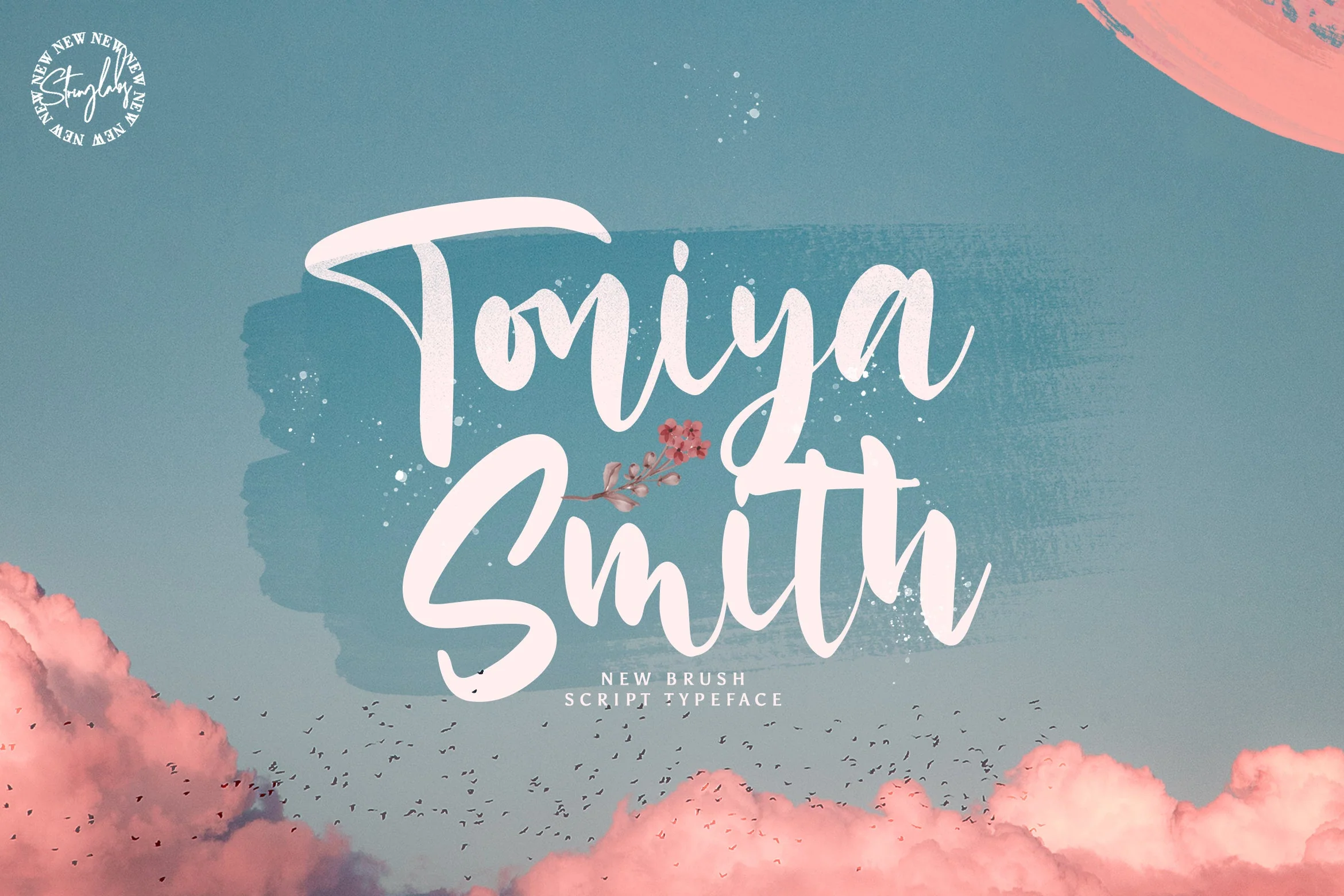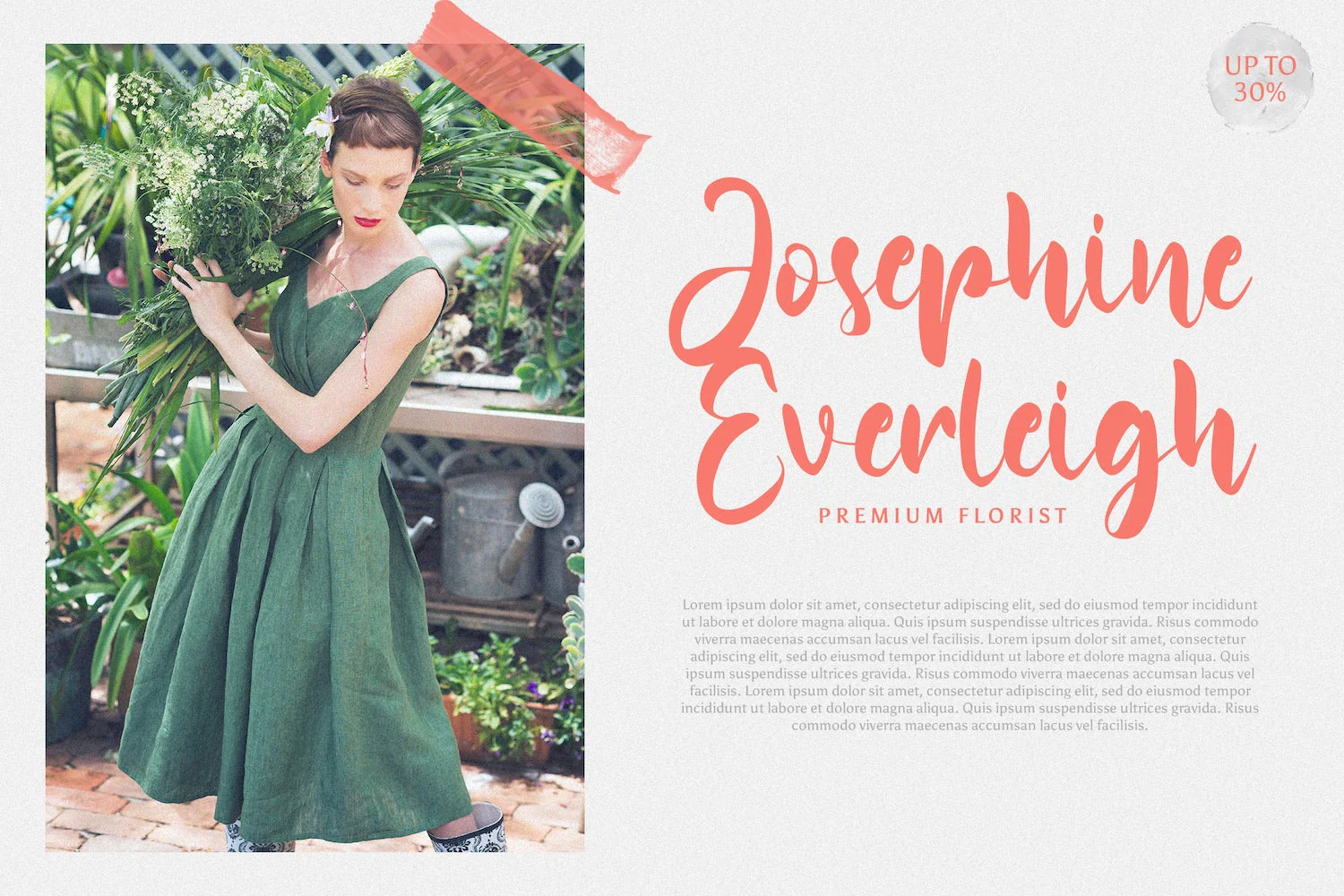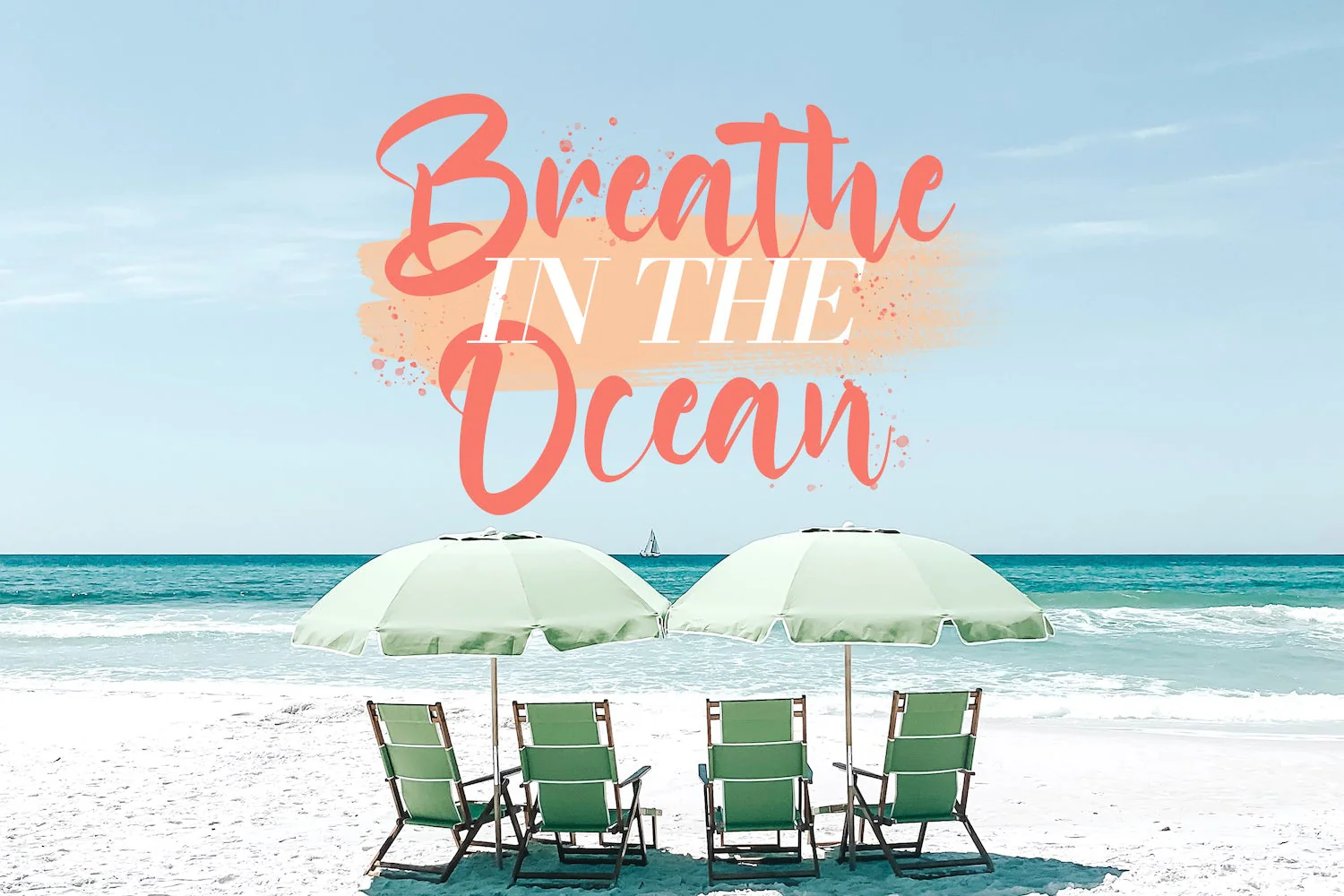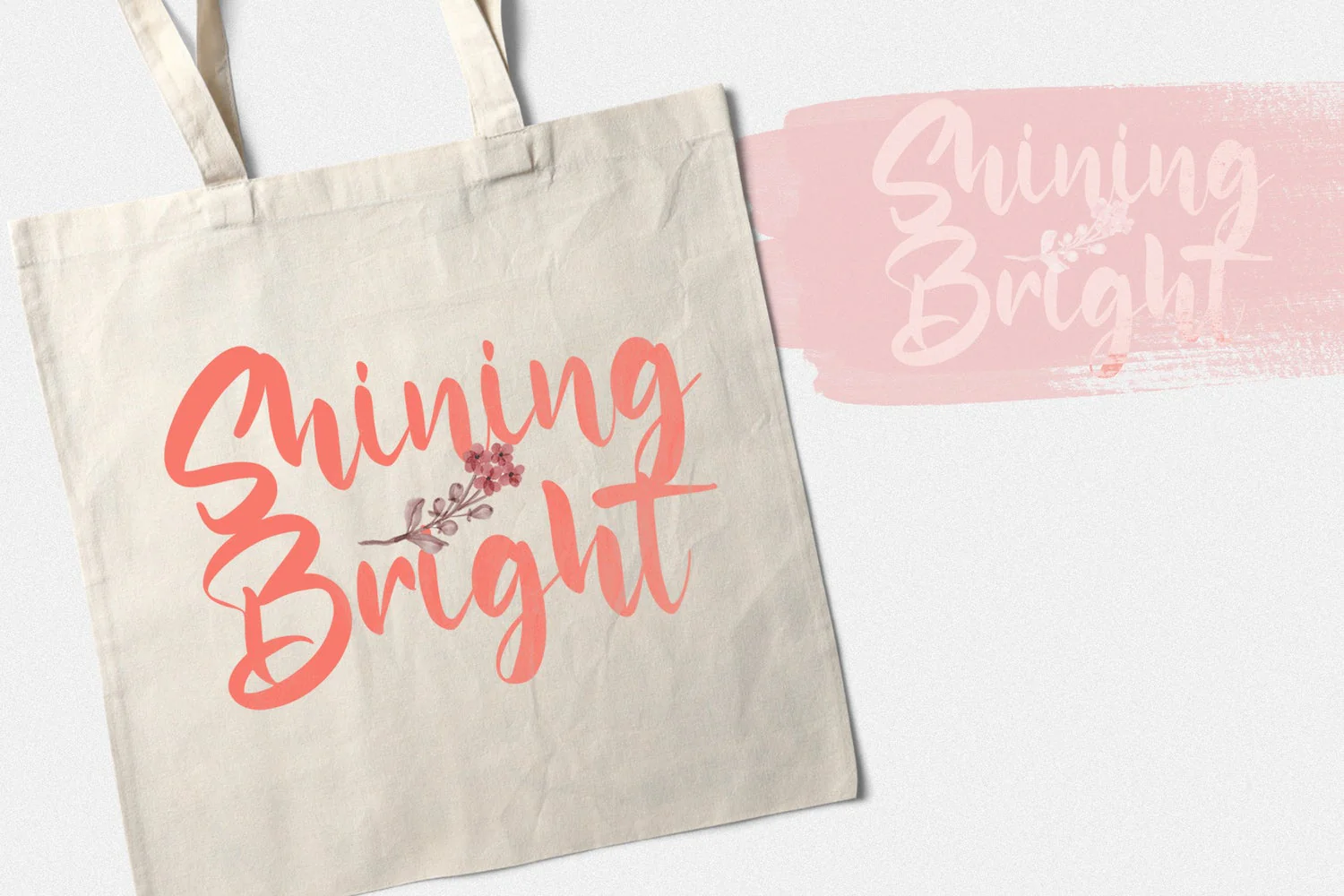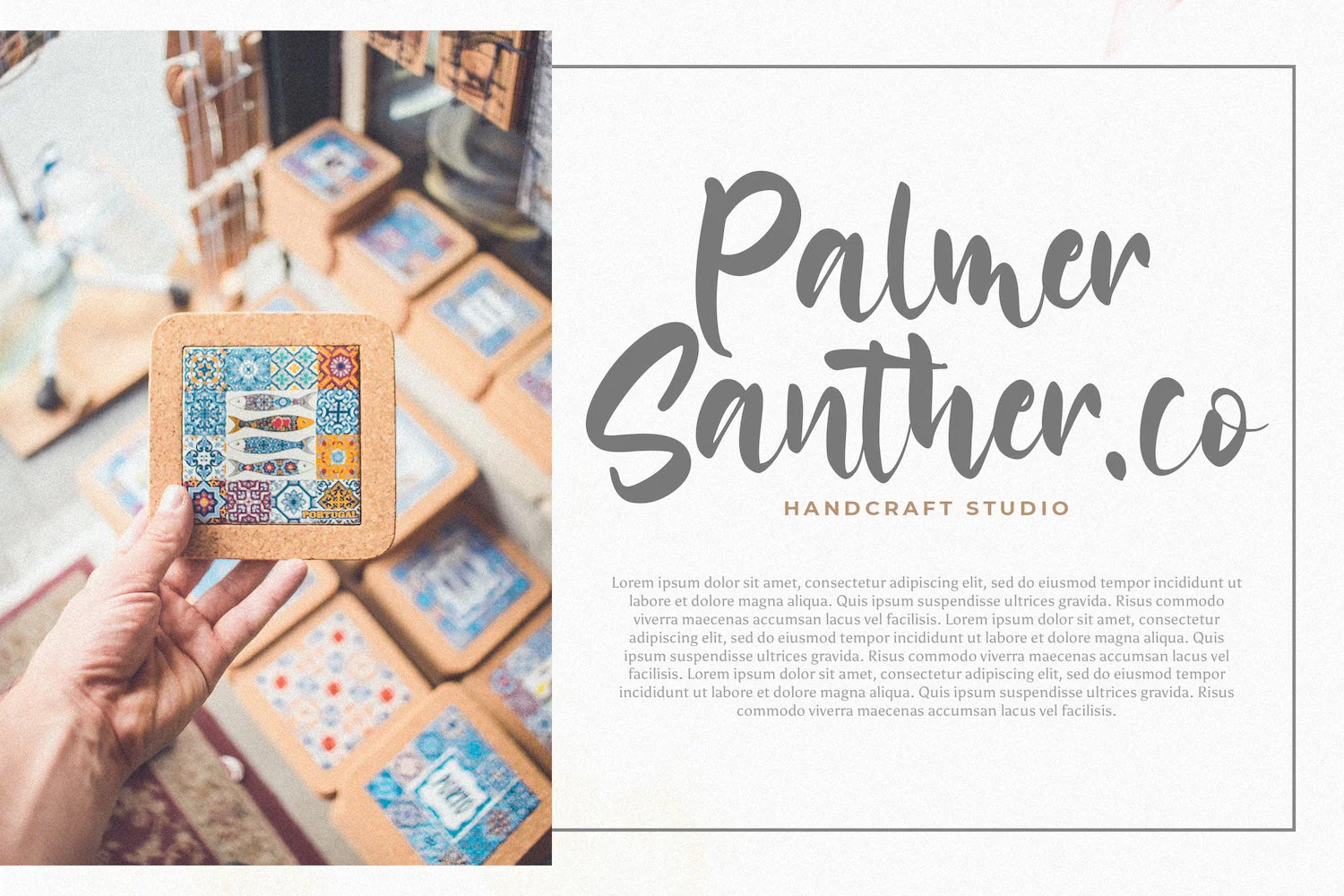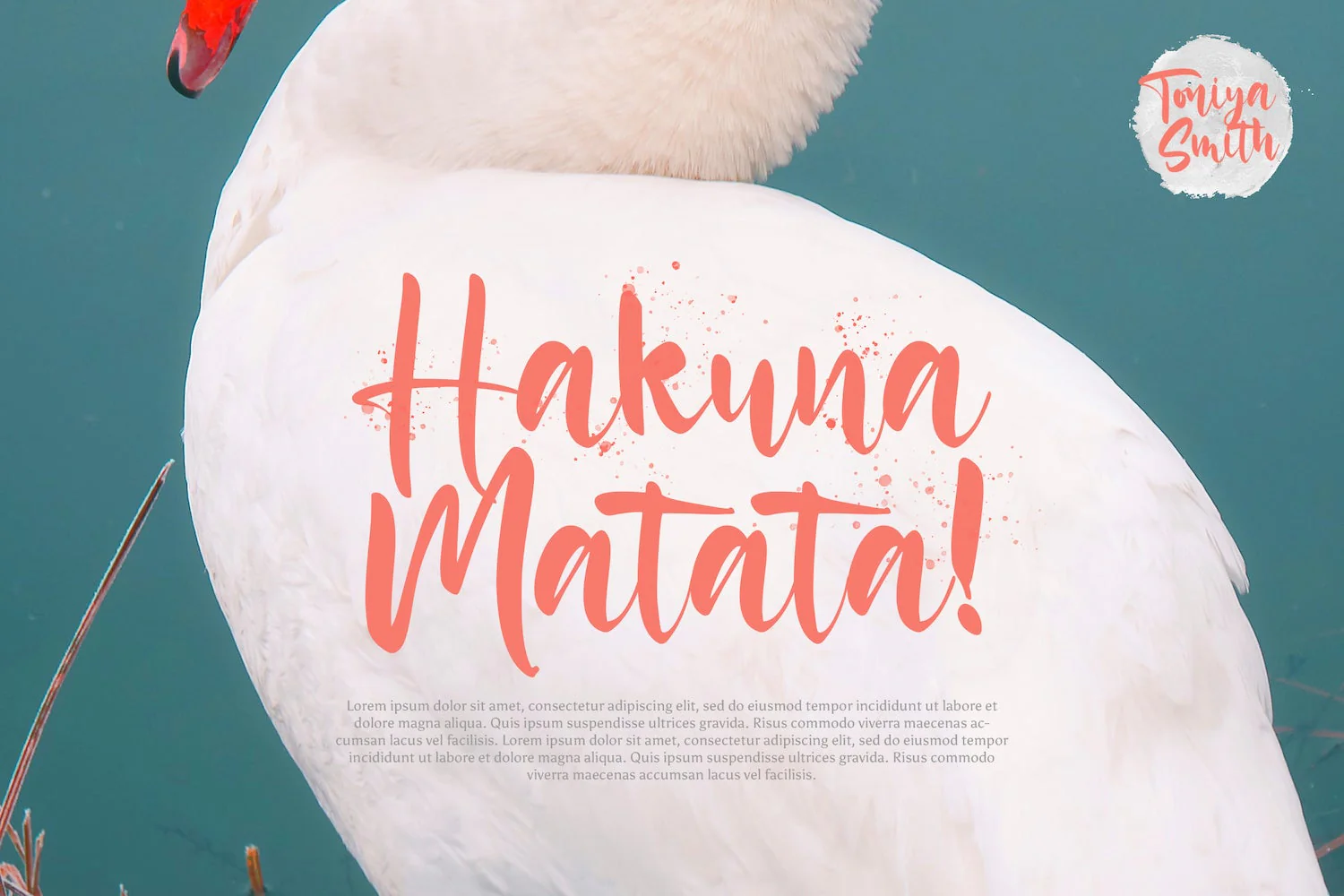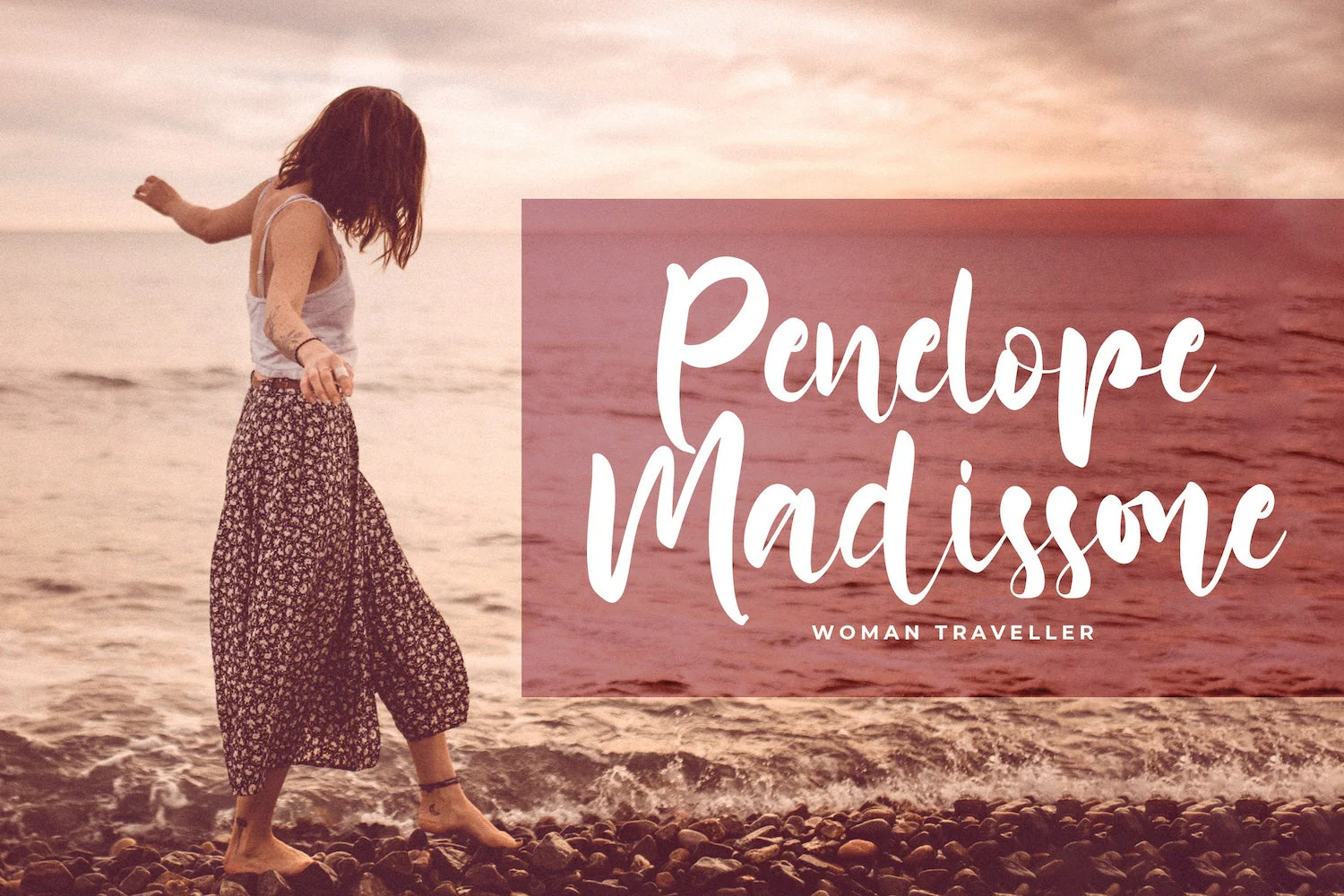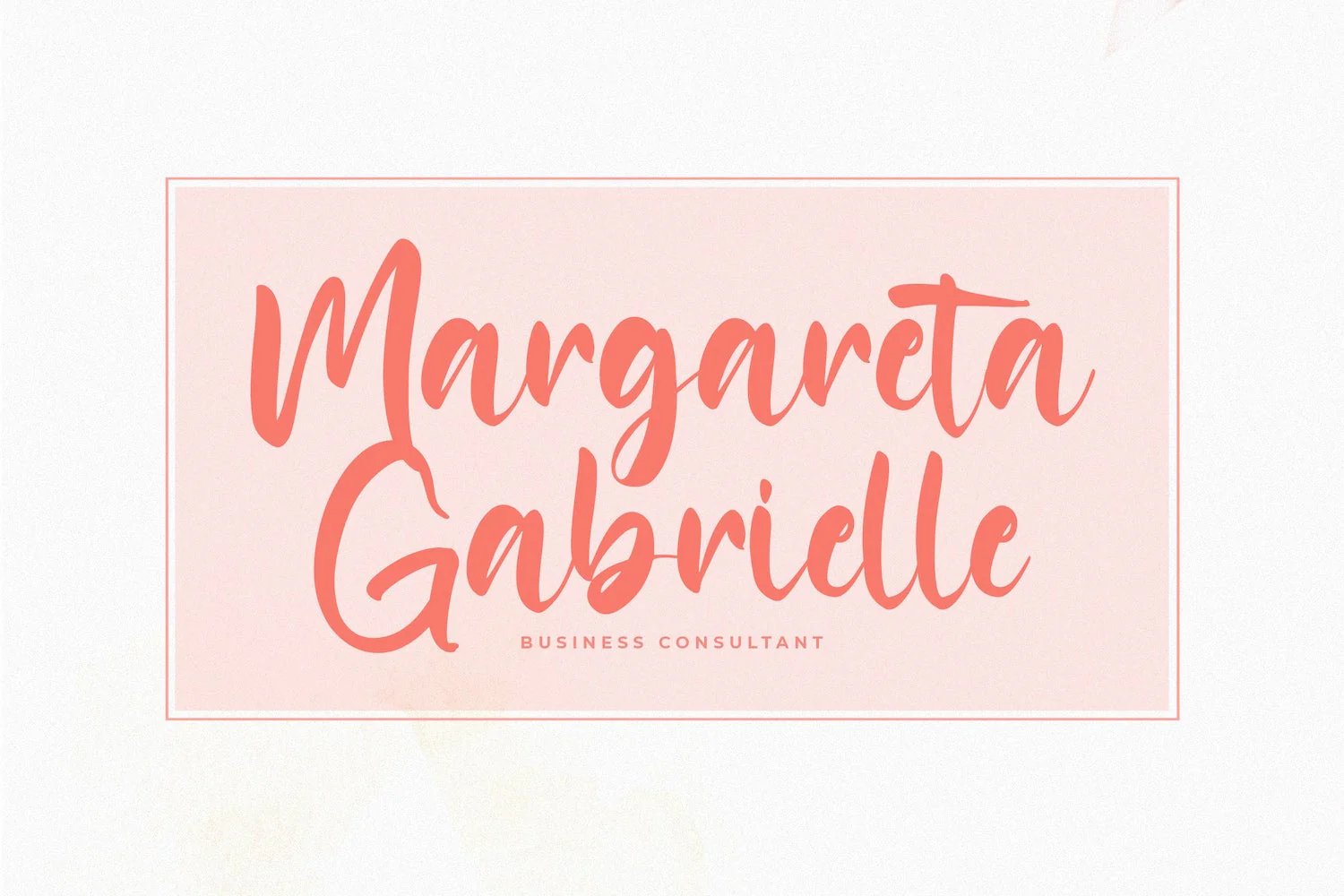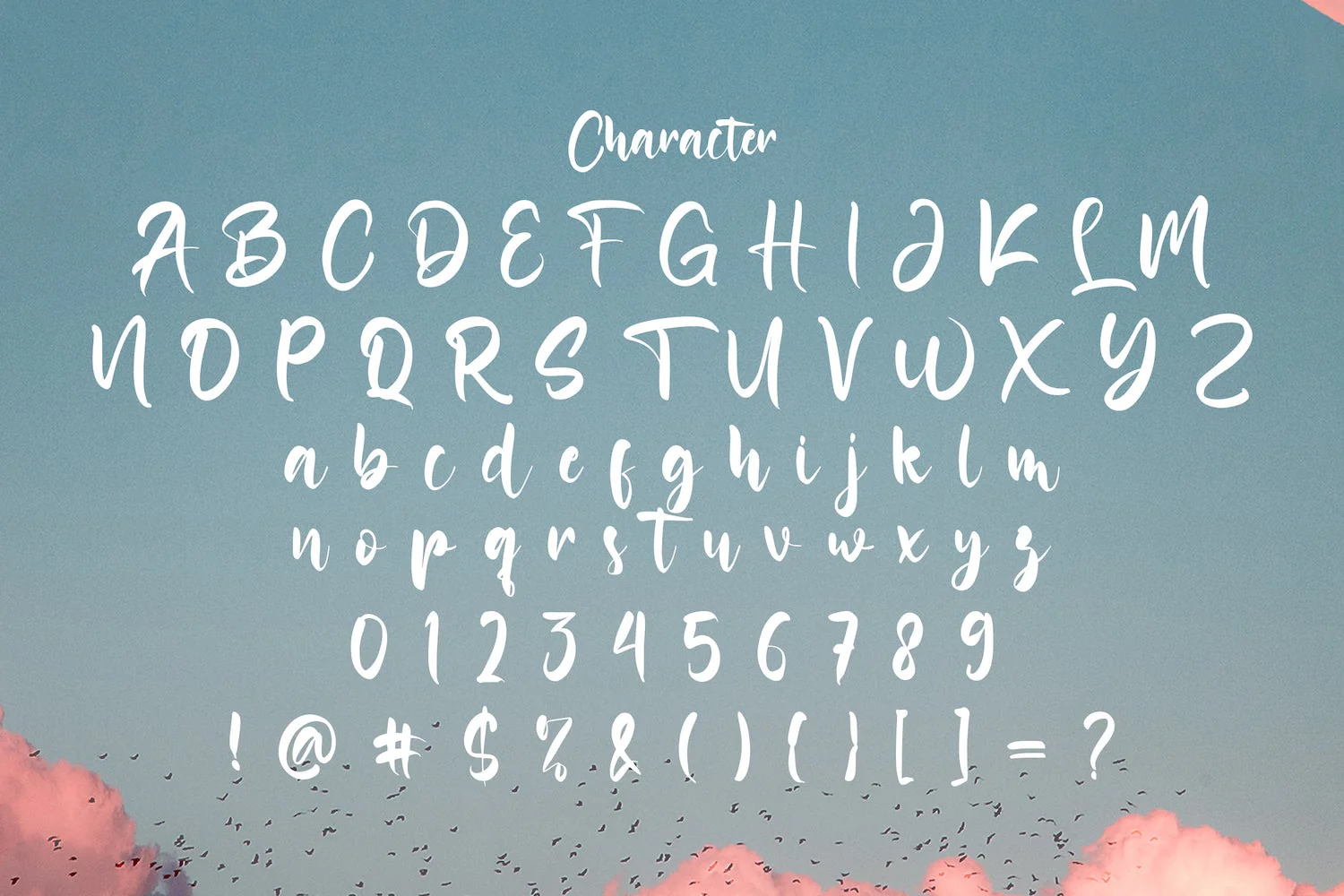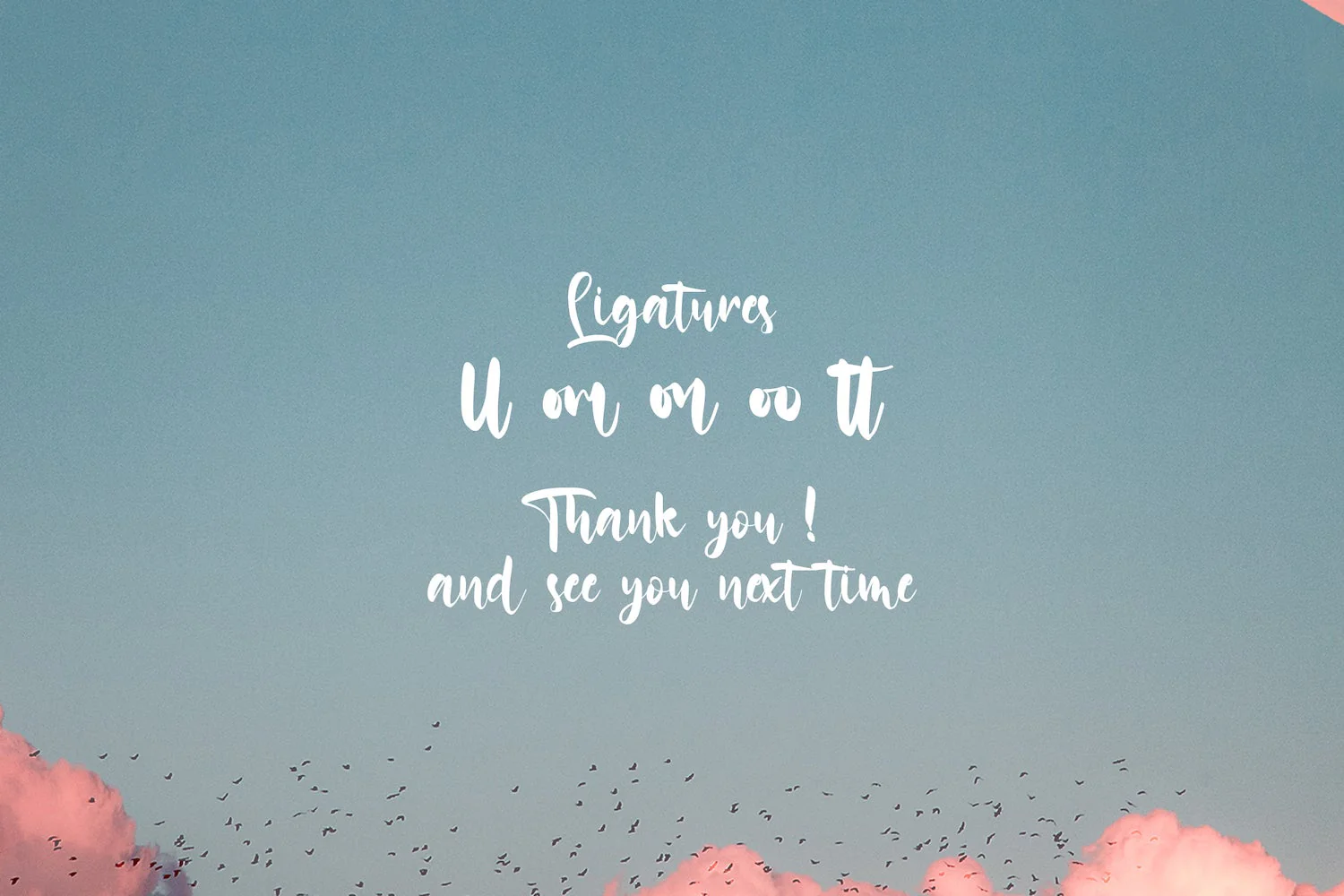
Toniya Smith - Handwritten Font
Introducing Toniya Smith - Handwritten Font
Toniya Smith is a delicate, elegant and flowing handwritten font. It has beautiful and well balanced characters and as a result, it matches a wide pool of designs. Add it to your most creative ideas and notice how it makes them come alive!
Introducing Toniya Smith - Handwritten Font
Toniya Smith is a delicate, elegant and flowing handwritten font. It has beautiful and well balanced characters and as a result, it matches a wide pool of designs. Add it to your most creative ideas and notice how it makes them come alive!